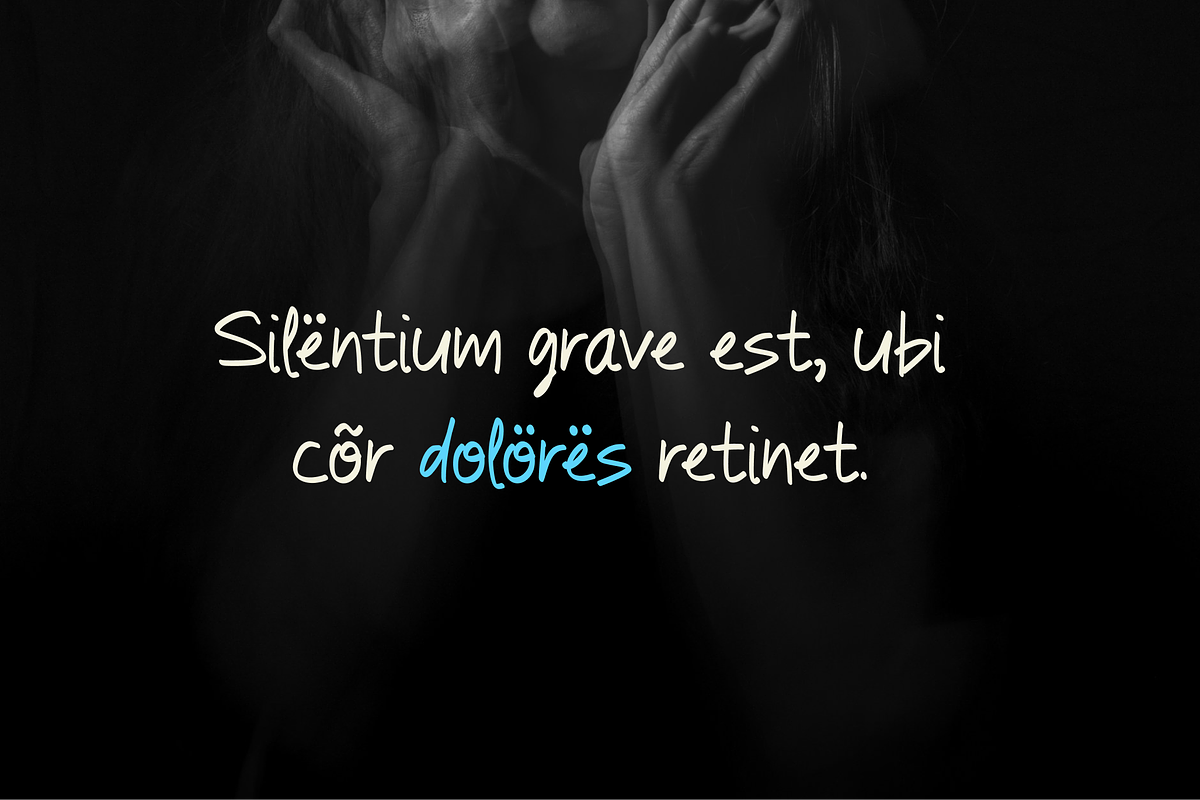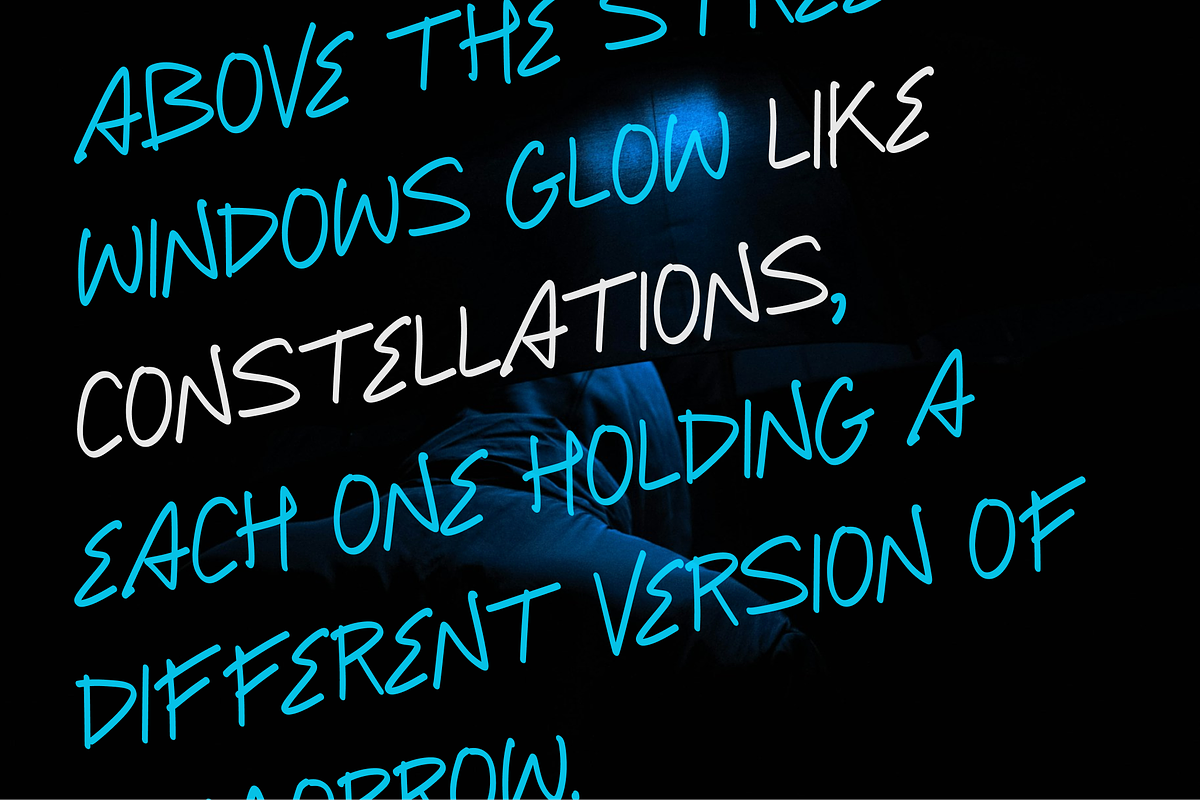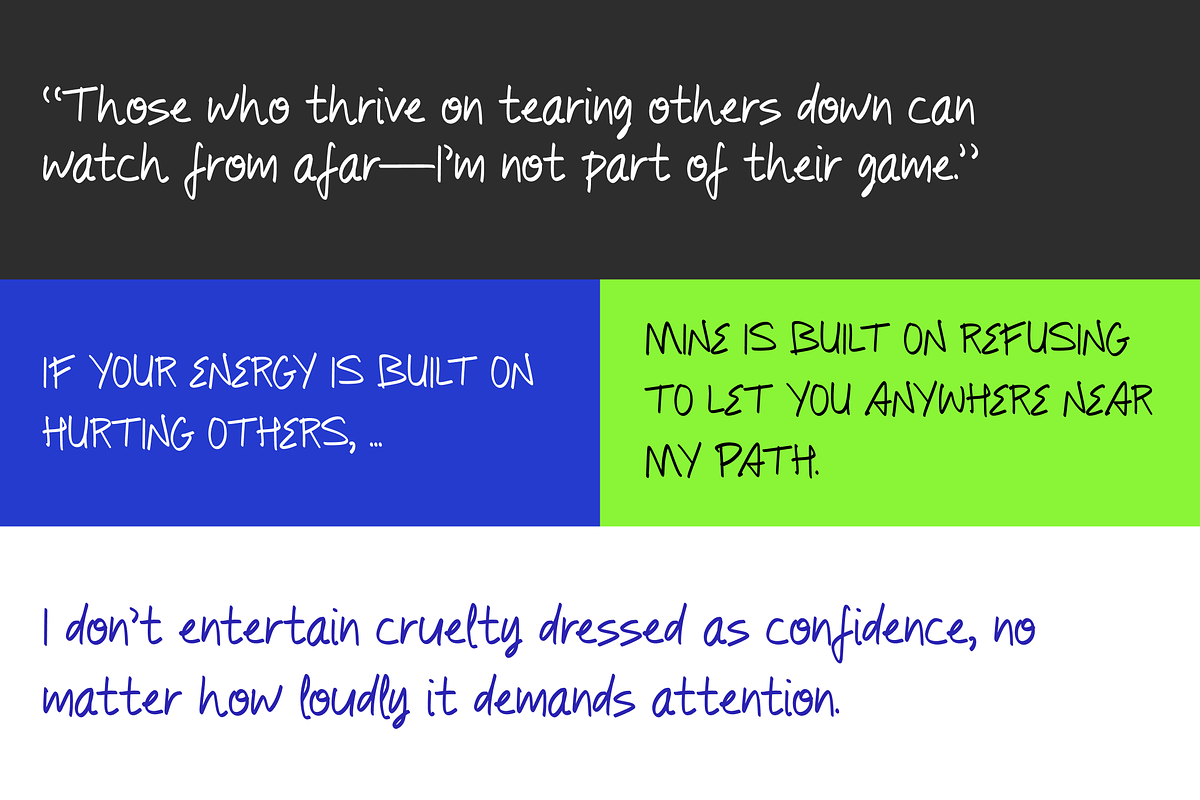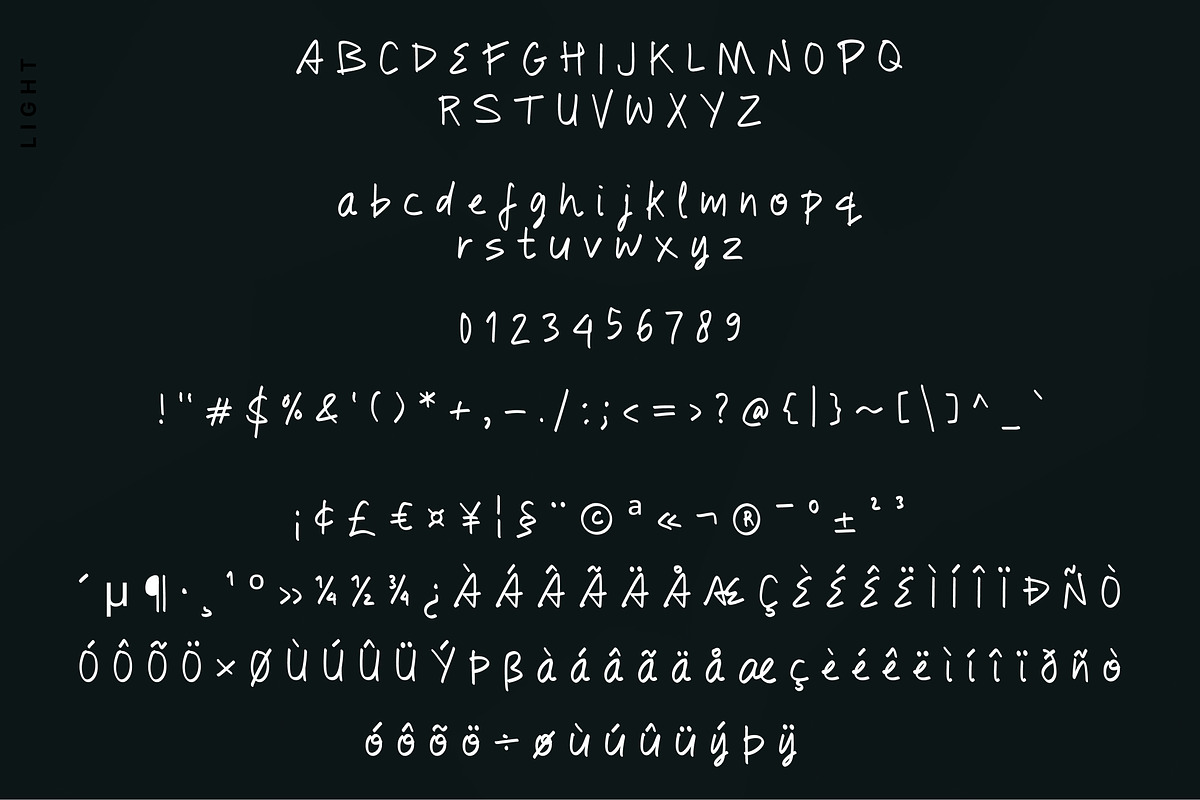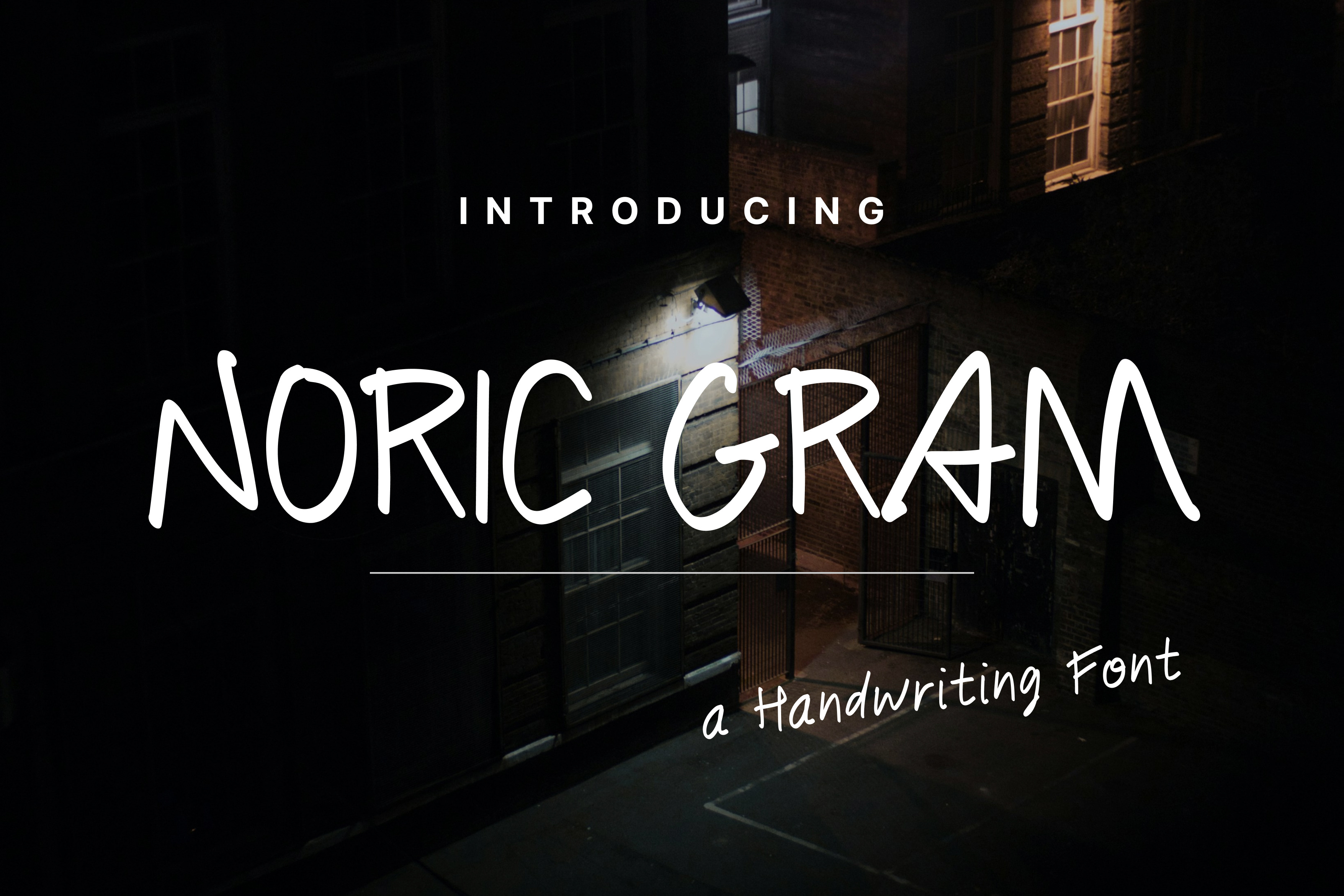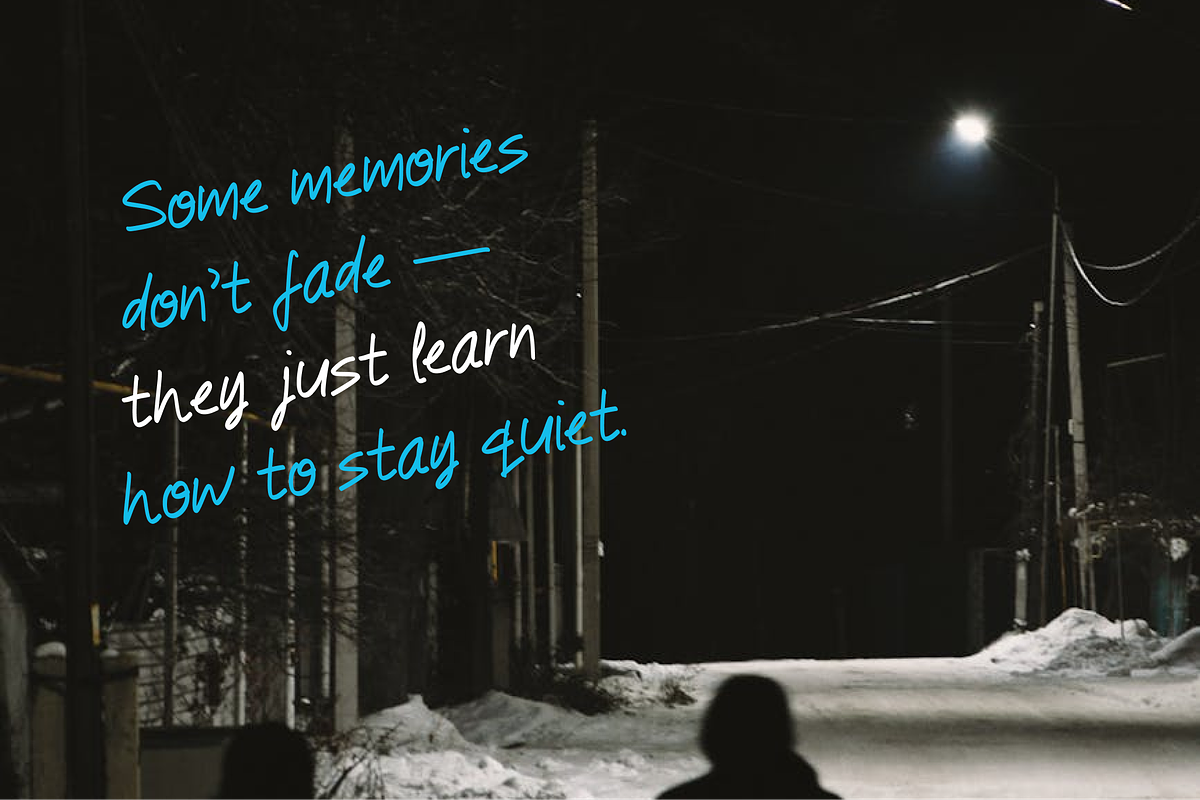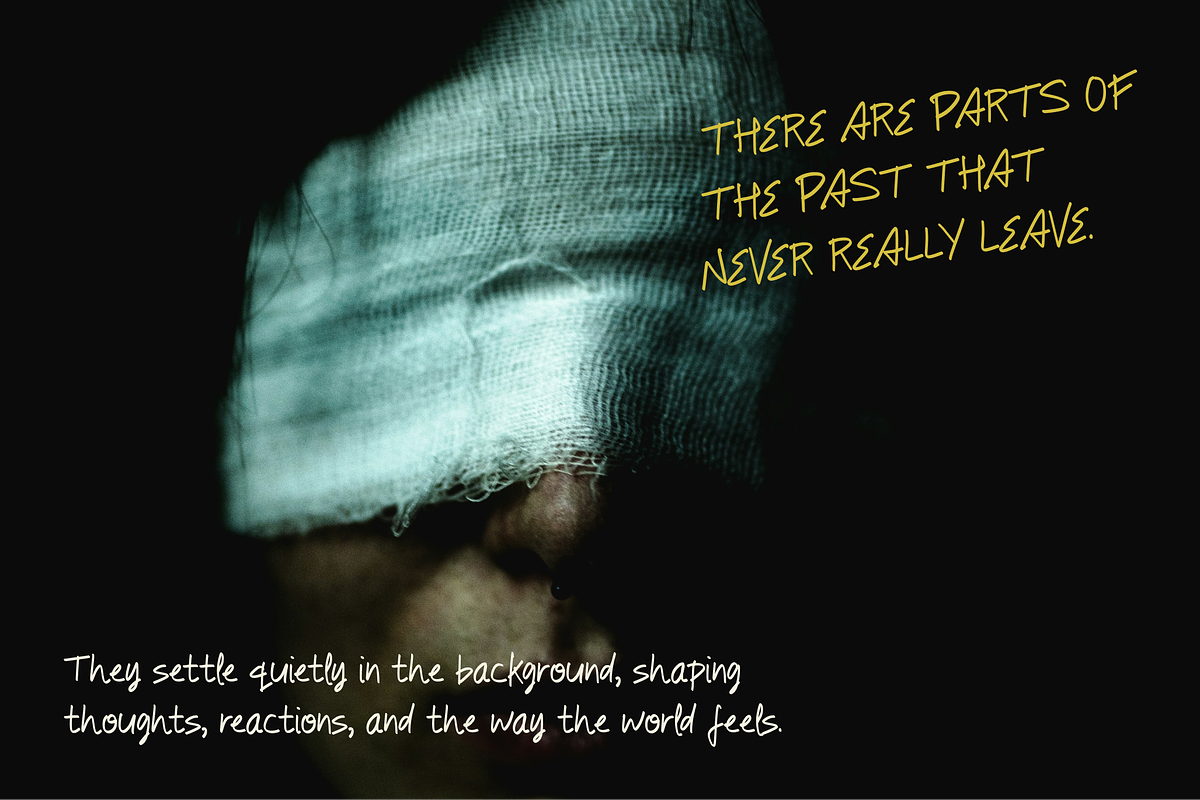
Noric Gram Font - Handwriting Font
Noric Gram is a raw and expressive handwriting font inspired by quiet nights, urban solitude, and unspoken emotions. With its natural strokes and slightly imperfect forms, this font captures the feeling of something personal — like thoughts written down in a moment of honesty.
The letterforms are fluid yet grounded, giving a balance between readability and character. Its handwritten style feels intimate, subtle, and slightly melancholic, making it perfect for designs that aim to convey depth, mood, and authenticity.
Noric Gram is not just about writing — it’s about atmosphere.
Editorial and poster design
Quotes and storytelling visuals
Branding with a personal or emotional tone
Social media content
Dark aesthetic and cinematic layouts
Uppercase & lowercase characters
Natural handwritten flow
Clean yet expressive strokes
Extended Latin characters (with diacritics) for multilingual support
The font includes a range of Latin-based glyphs with accents and special characters, allowing you to create more expressive and visually rich typography — perfect for modern, global design needs.
Noric Gram is made for creatives who want to explore the beauty of imperfection — where every line feels human, and every word carries emotion.